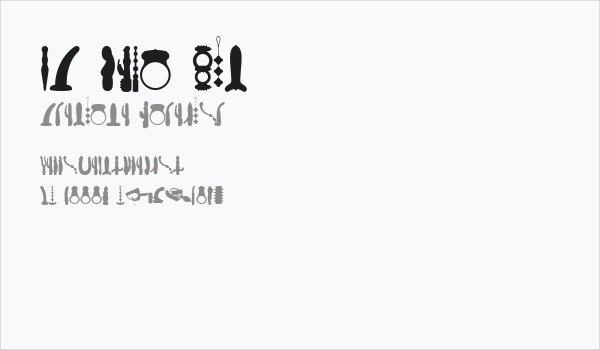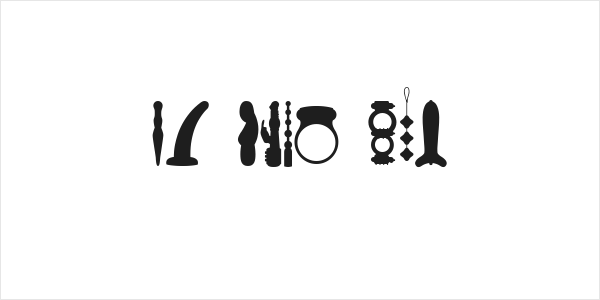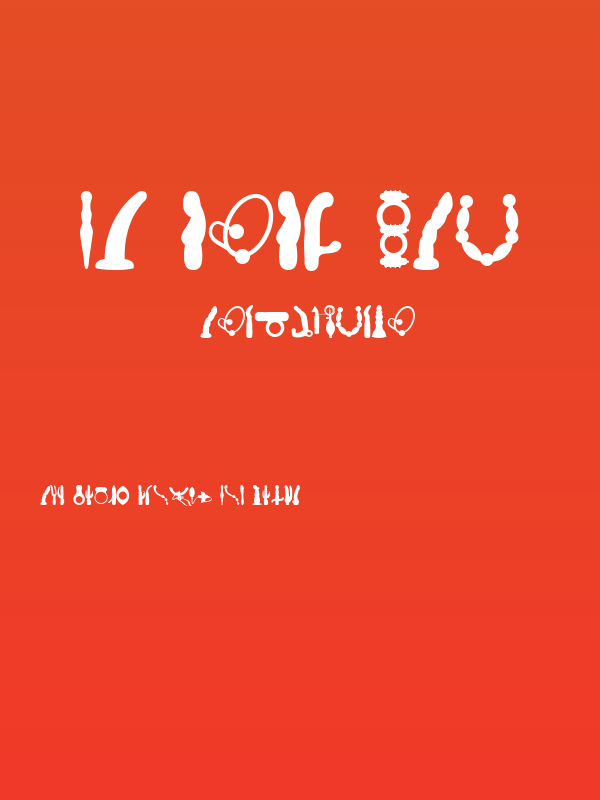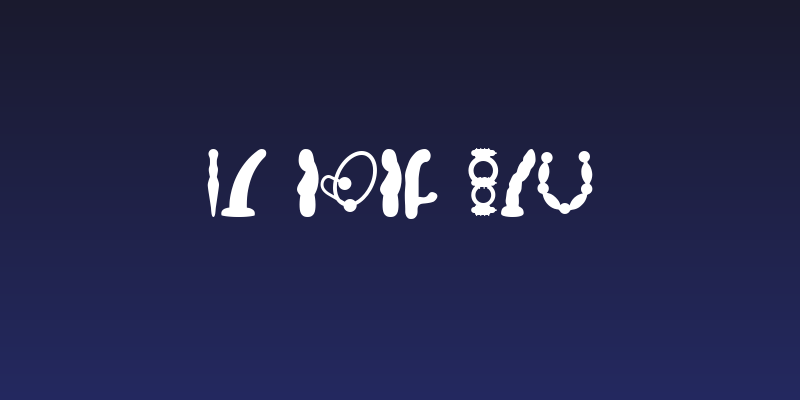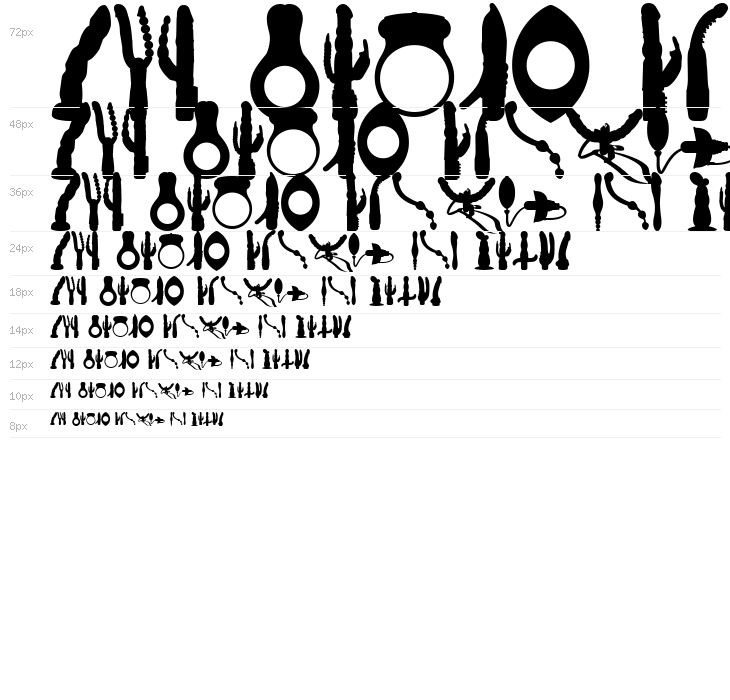
WC Zyzi Bta Font
WC Zyzi Bta Description
A highly decorative and explicit display font composed entirely of silhouettes of adult toys and objects, forming letter and number shapes in a bold, playful, and provocative style.
| Overall Style | Decorative, Playful, Provocative |
| Use Case | Logos, Headlines, Posters, Themed Graphics |
| Proposed Projects | Adult entertainment branding, novelty posters, party invitations, themed event graphics, satirical artwork. |